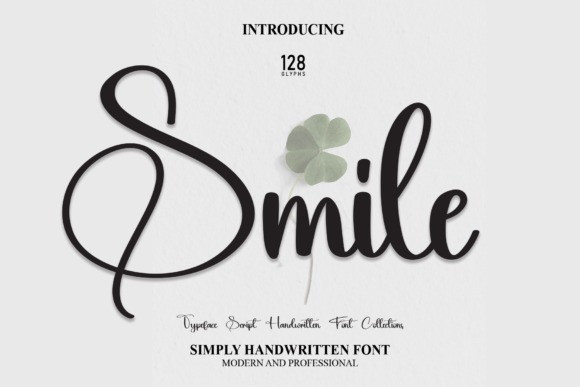
Smile Script Font
Smile Script Font, offers gorgeous typographic perfect for many different projects such as logos & branding, invitations, stationery, wedding designs, social media posts, advertisements, product packaging, product designs, labels, photography, watermarks, special events, or anything that needs handwriting taste.